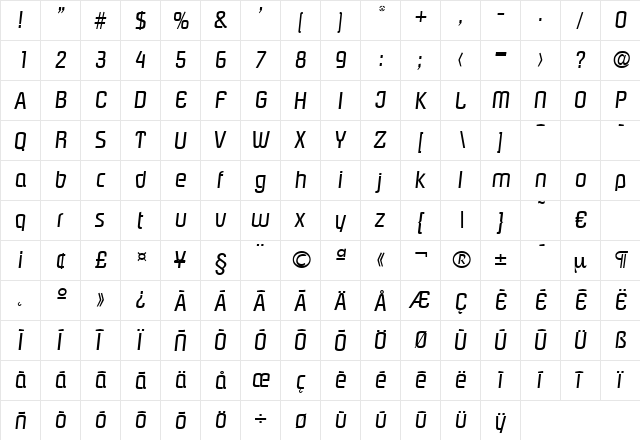
Pasadena-RegularIta Regular
Design Context for Pasadena-RegularIta Typeface
Pasadena-RegularIta offers clean, dependable letterforms without strong stylistic allegiance, making it a practical choice for designers who need flexibility.